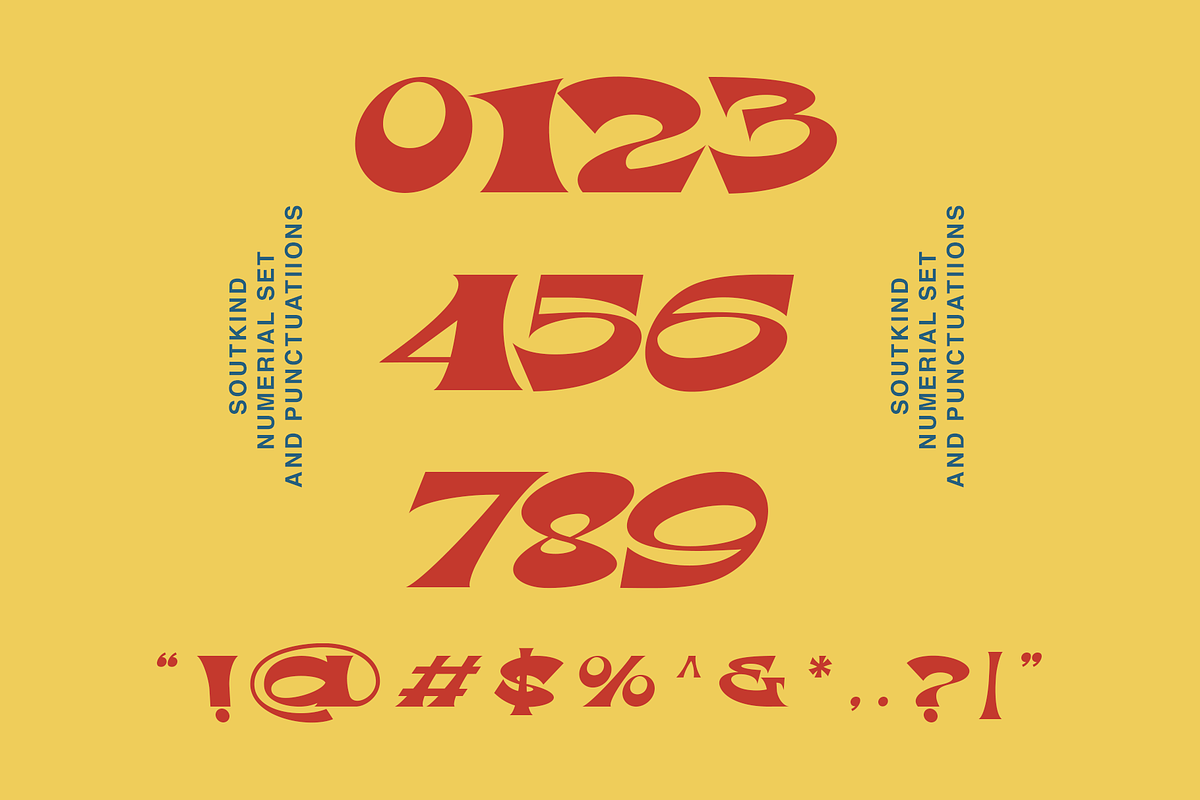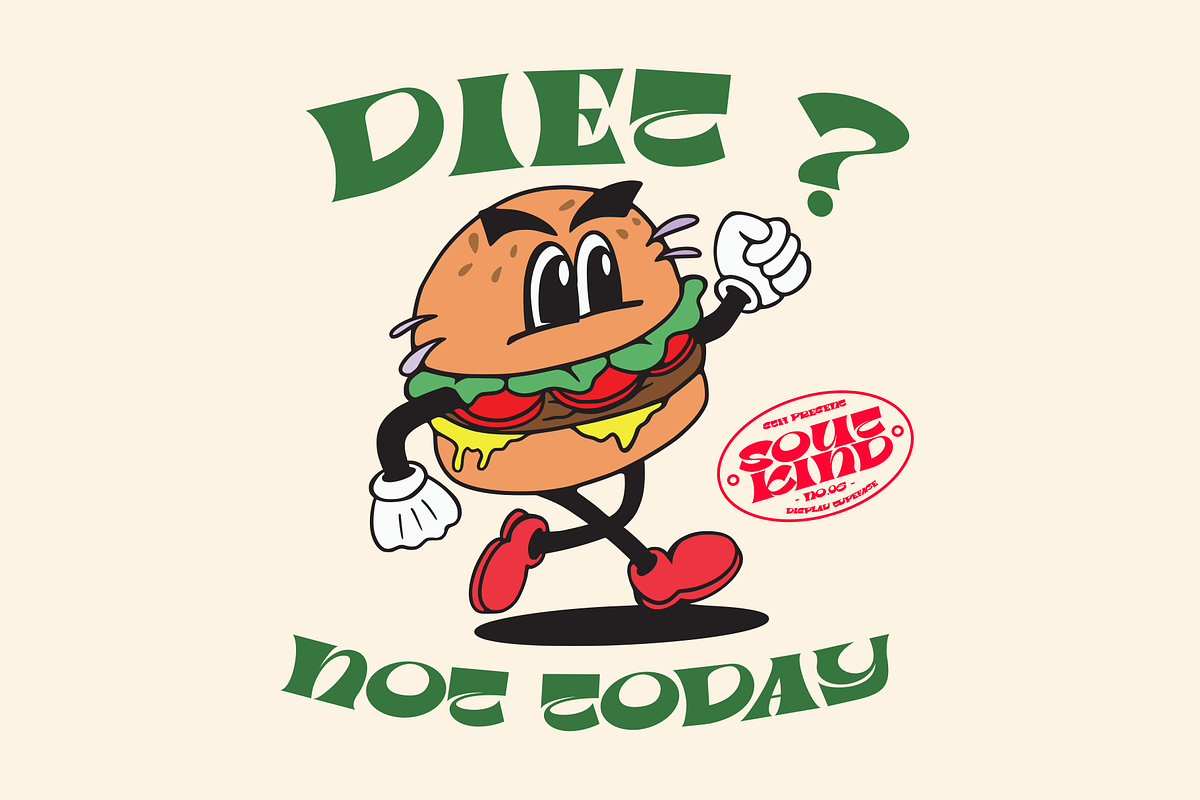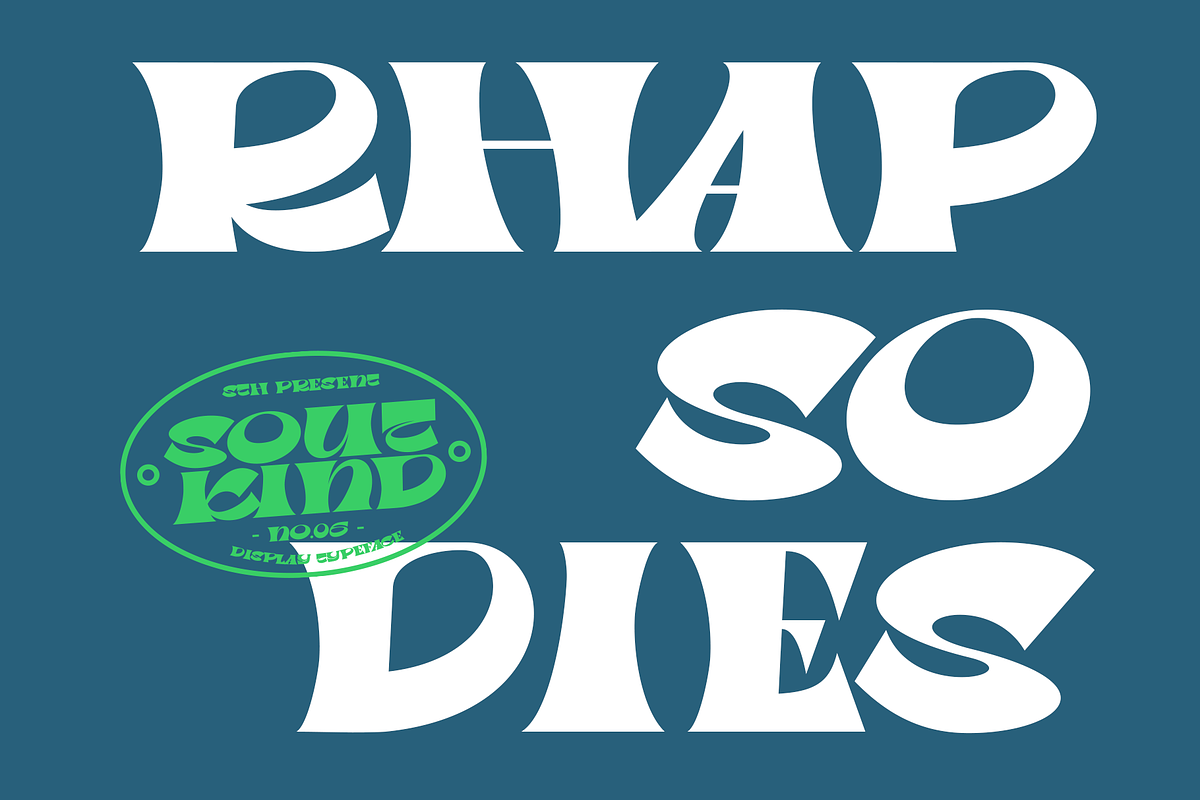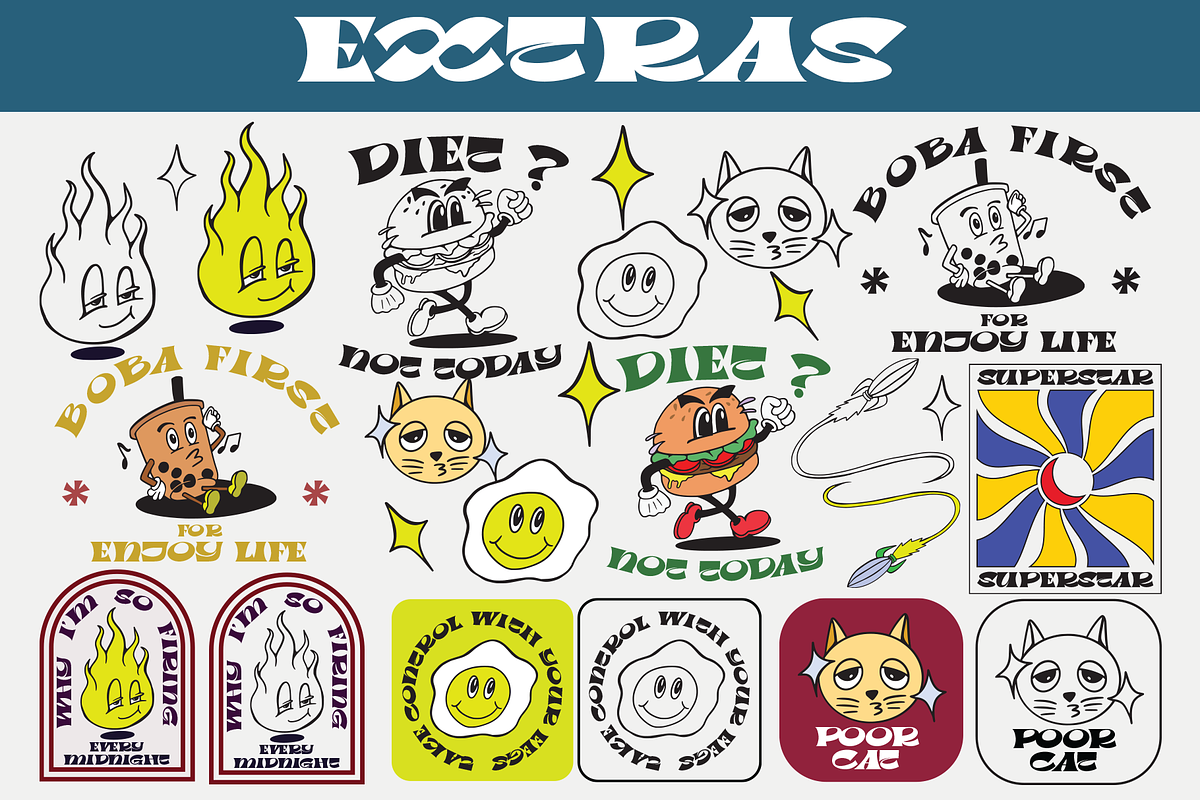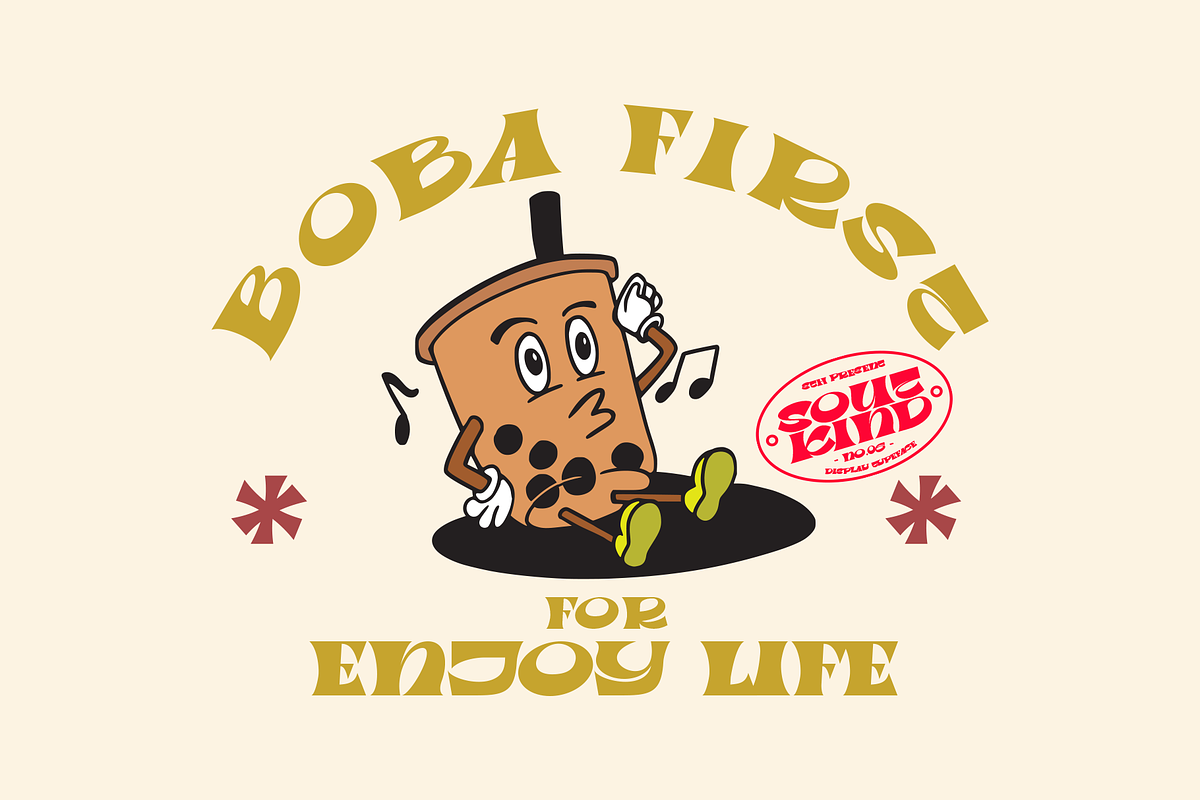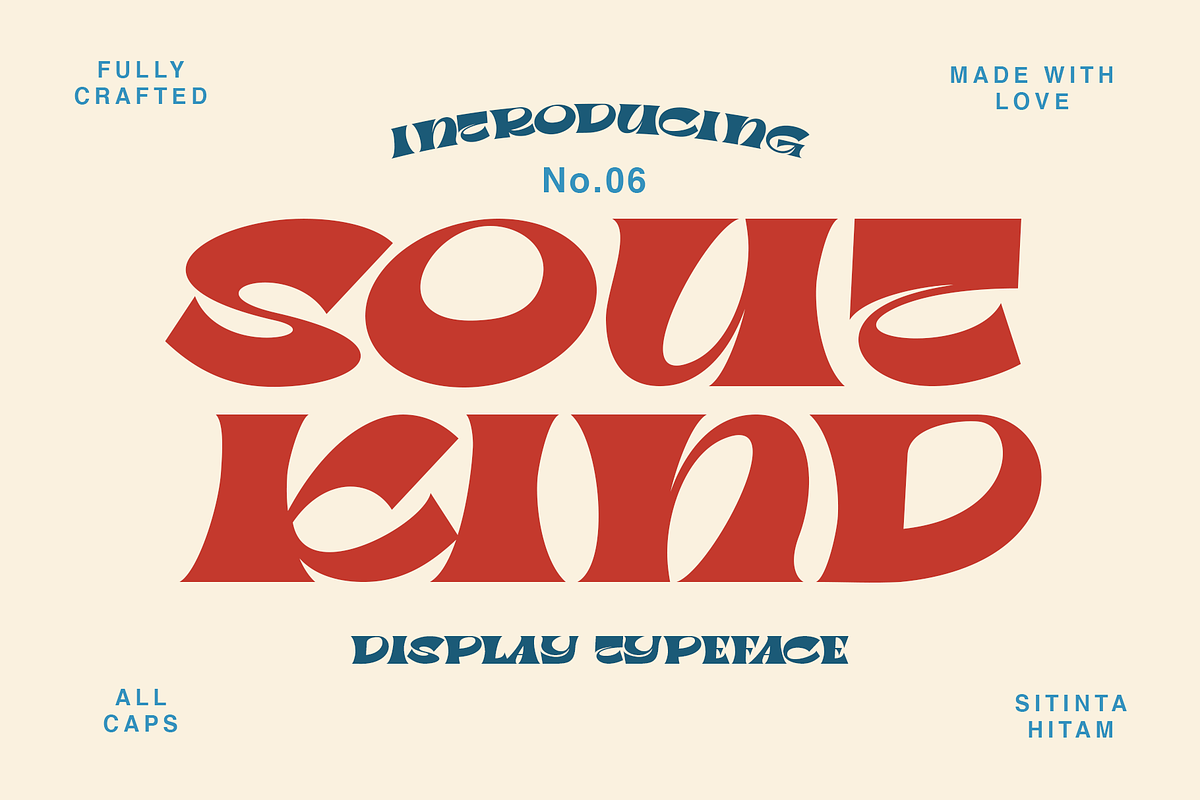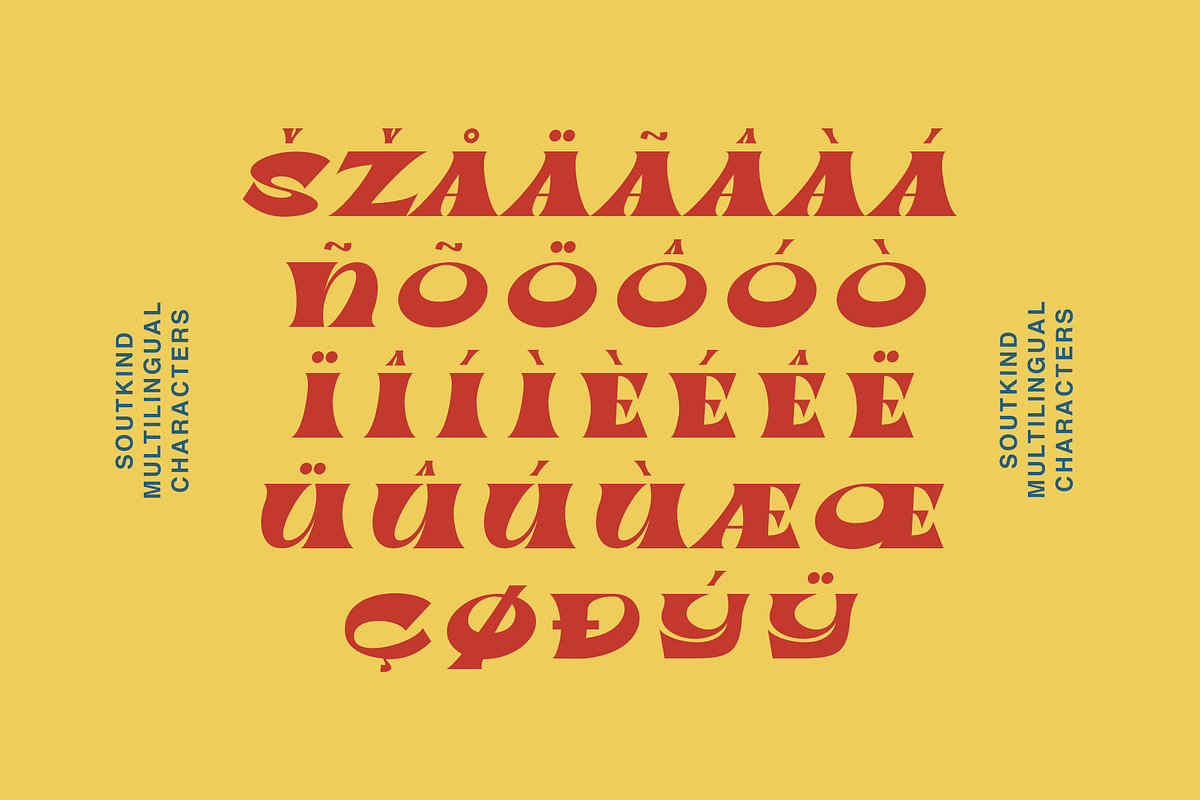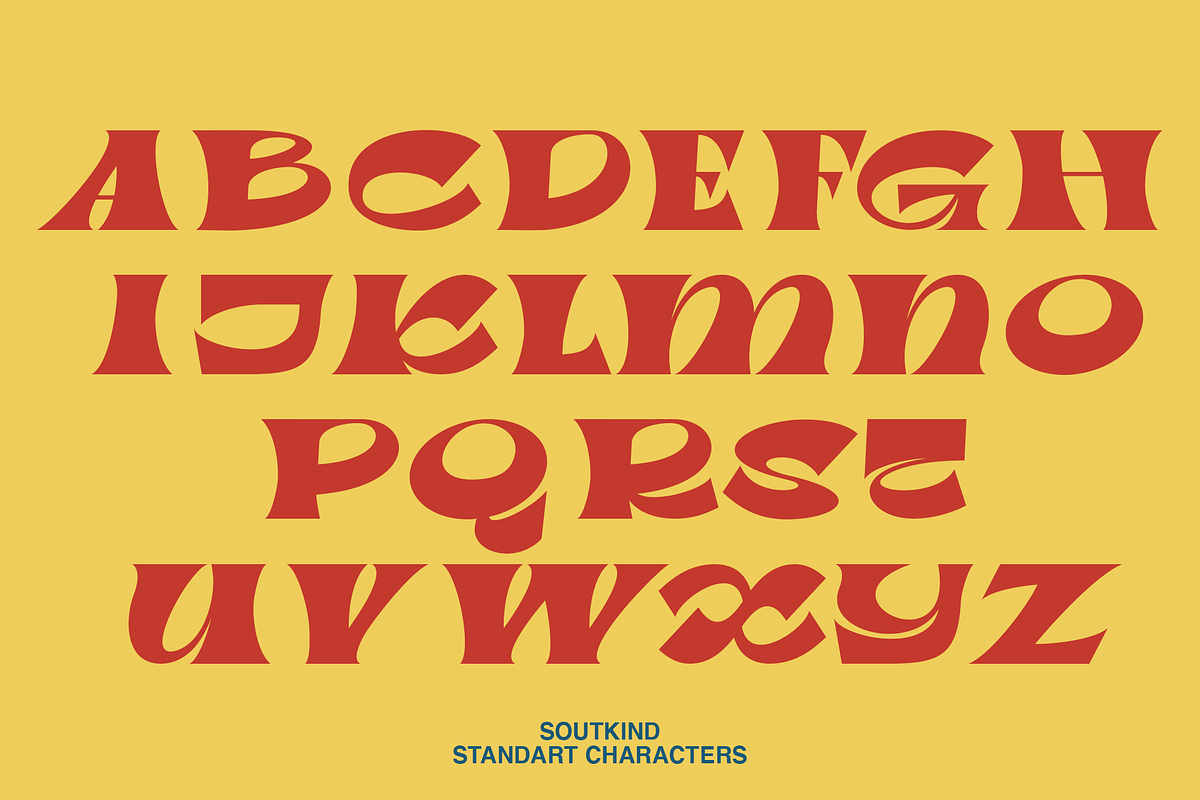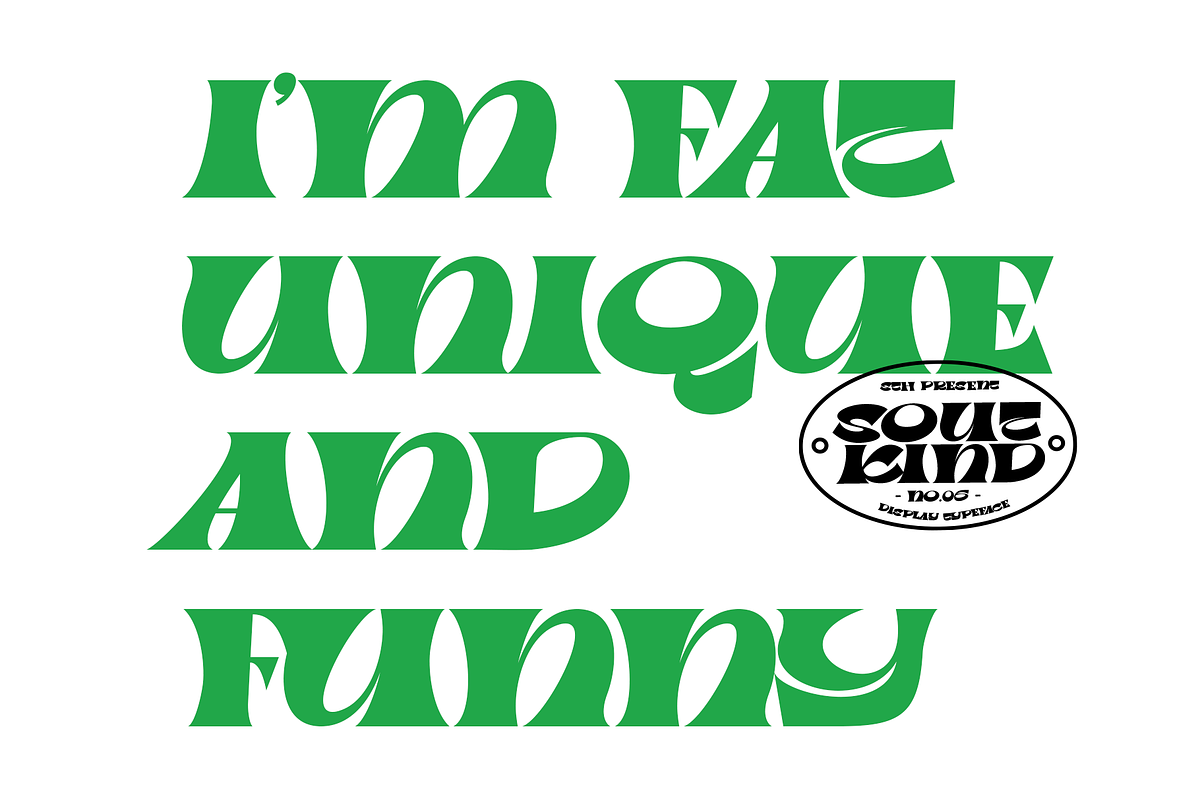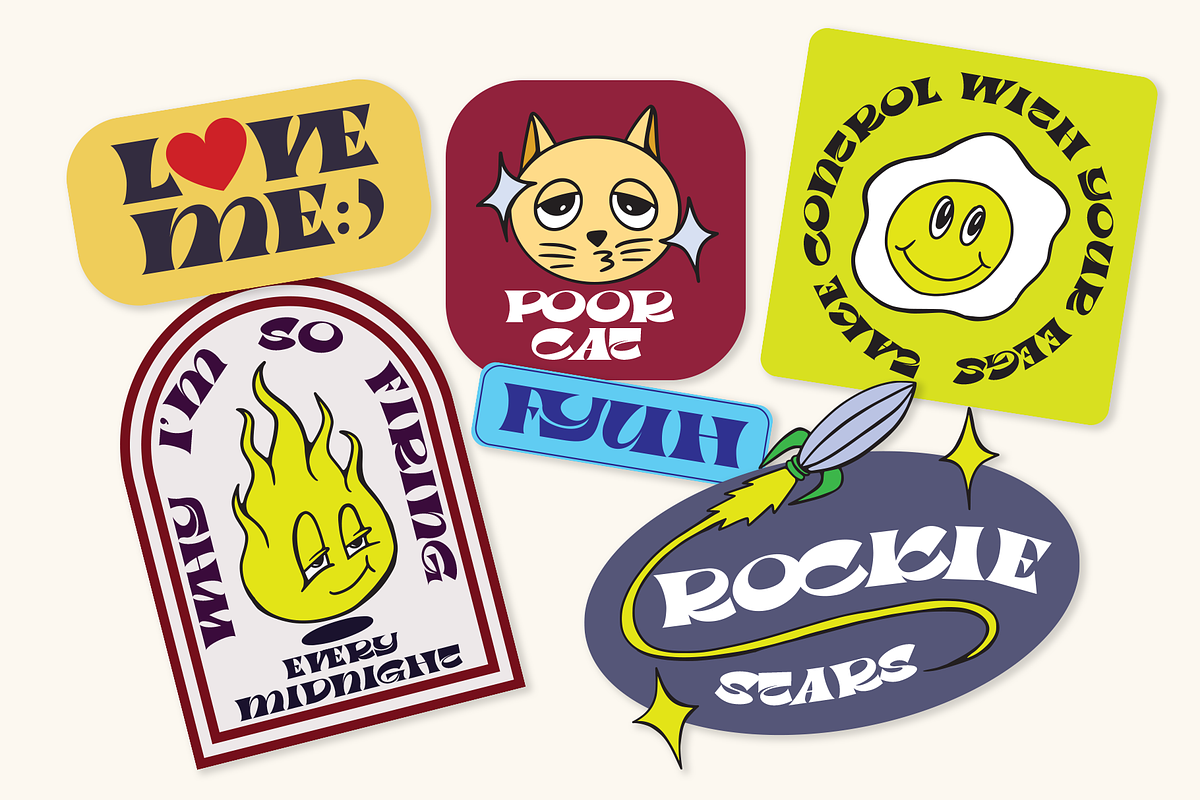
Soutkind
SOUTKIND is a display typeface with heavy bold style, inspired by pop culture in 80s century. Soutkind have a unique and fat forms. This font suitable for your design suh as packaging, poster, apparel, etc. SOUTKIND also includes a set of some pop illustration. Extras allows you to develop awesome design with this font.
SOUTKIND comes with uppercase, lowercase, number, punctuation, multilingual characters.